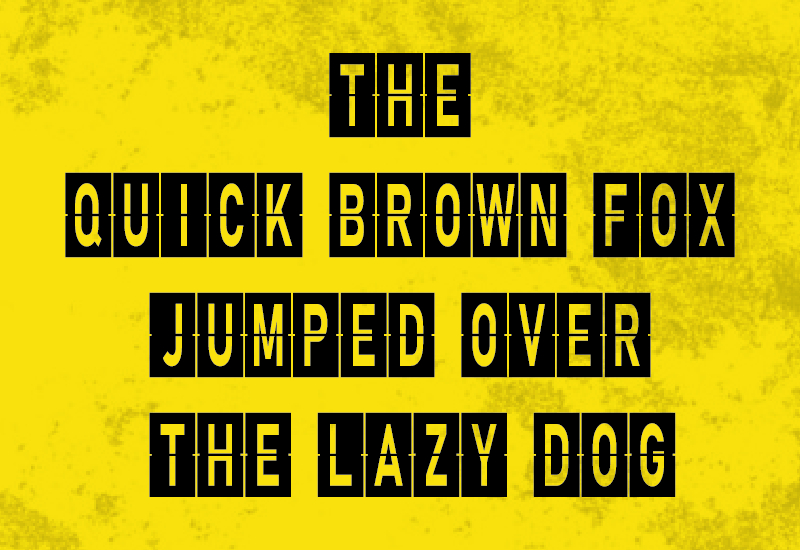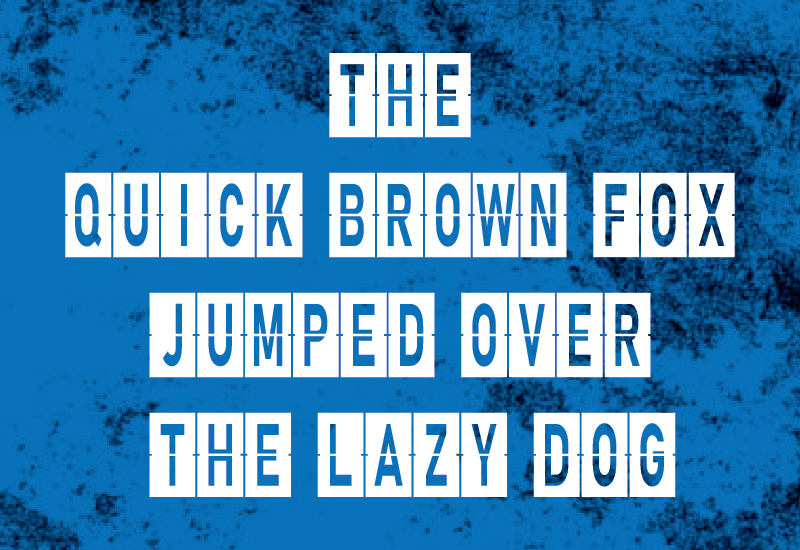
Countdown Font
About Countdown Font
The countdown is a cool, flip, counter, and retro-style font.
This font has the potential to bring each of your master ideas to the highest level.